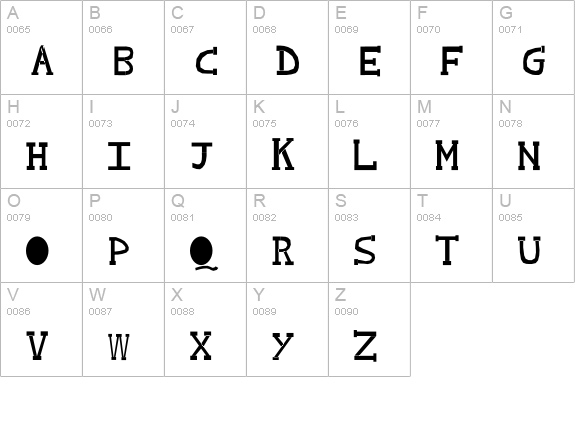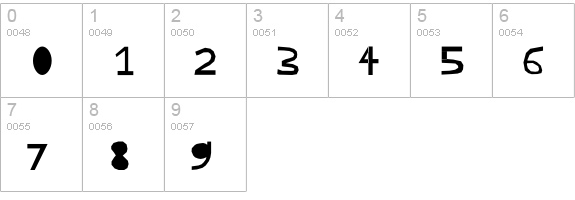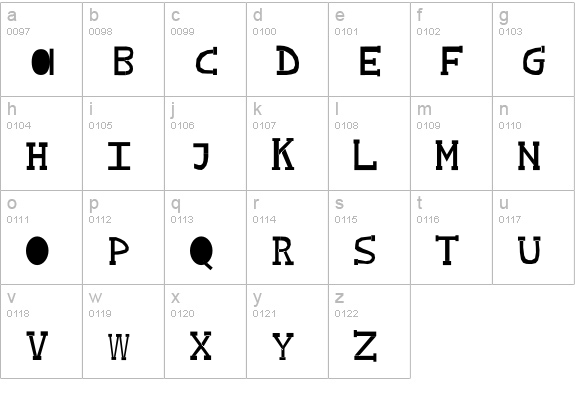
Kilimanjaro One Font Details
Kilimanjaro One font is a stunning display font that will elevate your designs to new heights. With its bold and powerful presence, this font is perfect for headlines, logos, and branding projects. Its unique and intricate letterforms will captivate your audience and leave a lasting impression. What sets Kilimanjaro One font apart is not only its exceptional design, but also its accessibility. It is freely available to download at FontsMarket.com, making it a valuable asset for designers and creatives who are looking for high-quality fonts without breaking the bank. Whether you are a professional designer or a hobbyist, this font gives you the opportunity to create visually striking designs without any financial constraints. The versatility of Kilimanjaro One font is another reason to love it. It can be used in a variety of design projects, from advertisements and posters to website headers and social media graphics. Its clean lines and precise curves ensure legibility even at smaller sizes, making it suitable for both print and digital applications. The attention to detail in Kilimanjaro One font is evident in every letter. Each character has been meticulously crafted to create a harmonious and cohesive typeface that is pleasing to the eye. The balance between thick and thin strokes adds a touch of elegance, while the subtle curves and angles give it a modern and contemporary feel. With Kilimanjaro One font, you have the freedom to explore your creativity and bring your design visions to life. Its bold and distinctive style will make your projects stand out from the crowd, leaving a lasting impression on your audience. Download this remarkable font for free at FontsMarket.com and unlock a world of design possibilities.